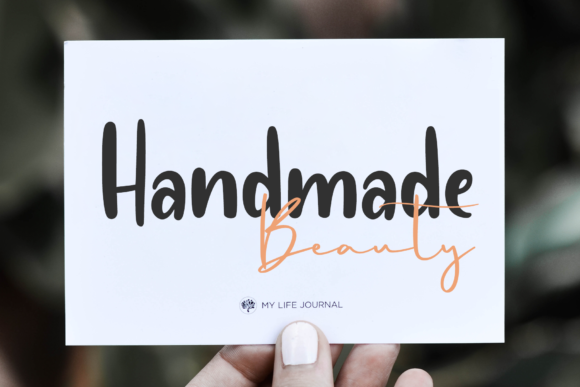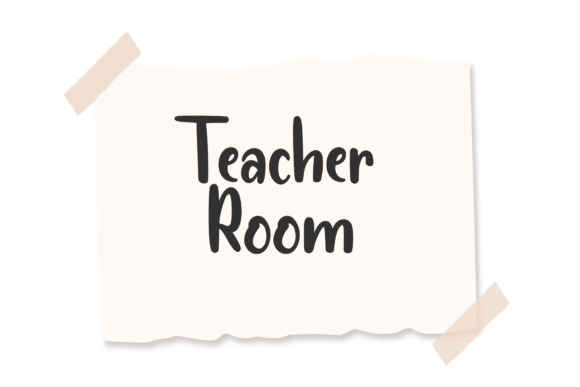
Funny Farmer Font
db-ku.com - Script & Handwritten -- Funny Farmer is a chic and trendy handwritten font. It will look stunning on any poster, flyer or print.